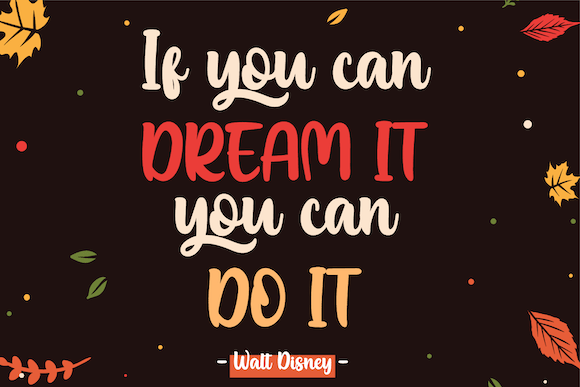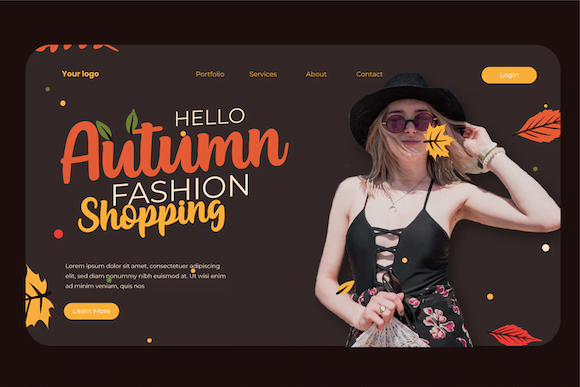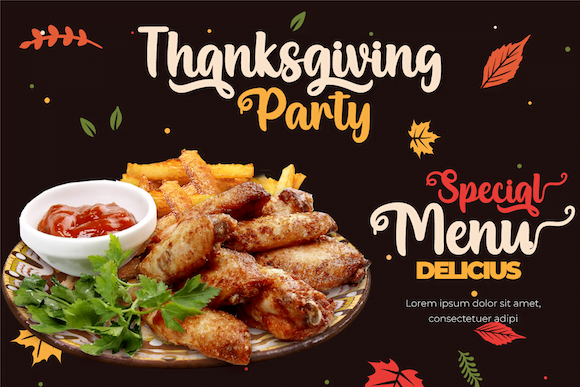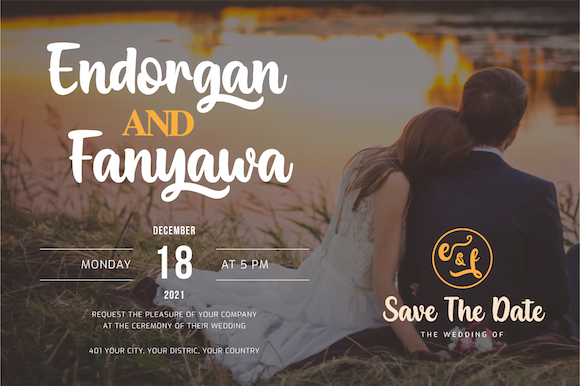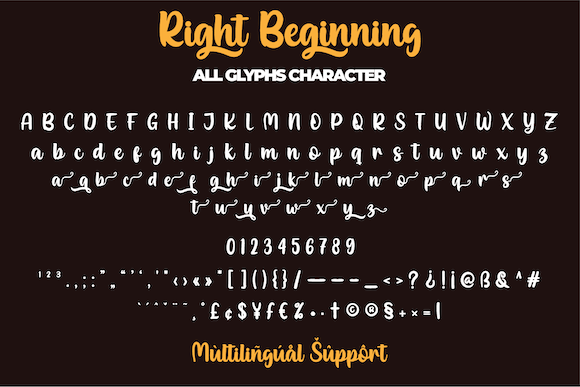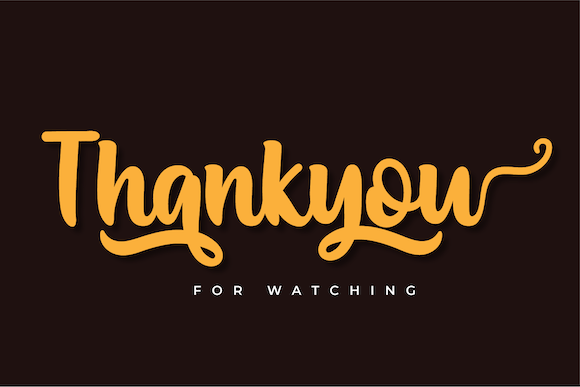
Right Beginning
Start every project on the right note with Right Beginning, a charming Handwritten Script Font designed to bring authenticity and warmth to your text. With its organic, flowing lines and smooth curves, this font mimics the feel of a carefully penned letter, making it ideal for logos, invitations, quotes, and lifestyle branding. The expressive strokes of Right Beginning give your designs a relaxed yet refined look, perfect for adding a touch of sincerity.
Whether you’re designing wedding invites, creating heartfelt social media posts, or developing a personal brand, Right Beginning delivers a touch of sophistication and elegance that feels both stylish and genuine. It’s the perfect choice for projects that need a hint of nostalgia and a hand-crafted feel.